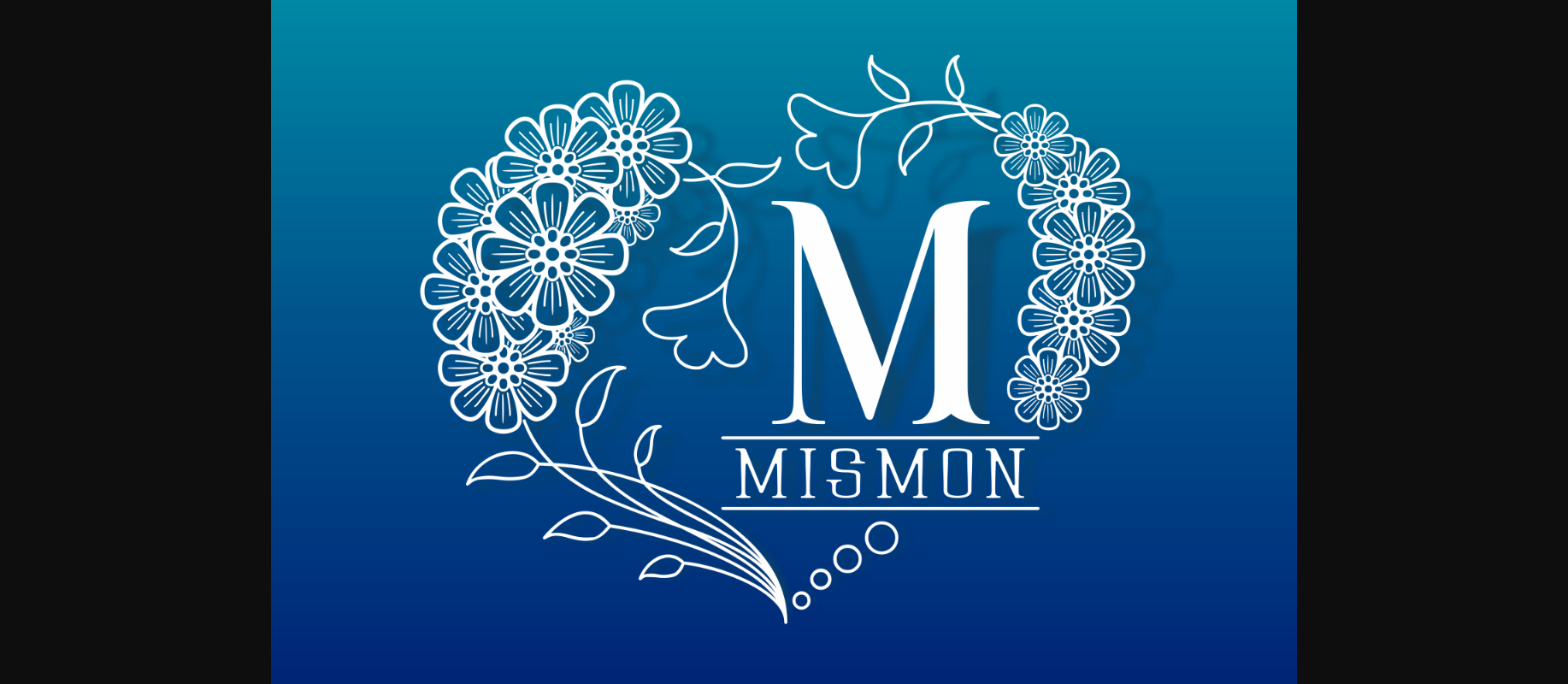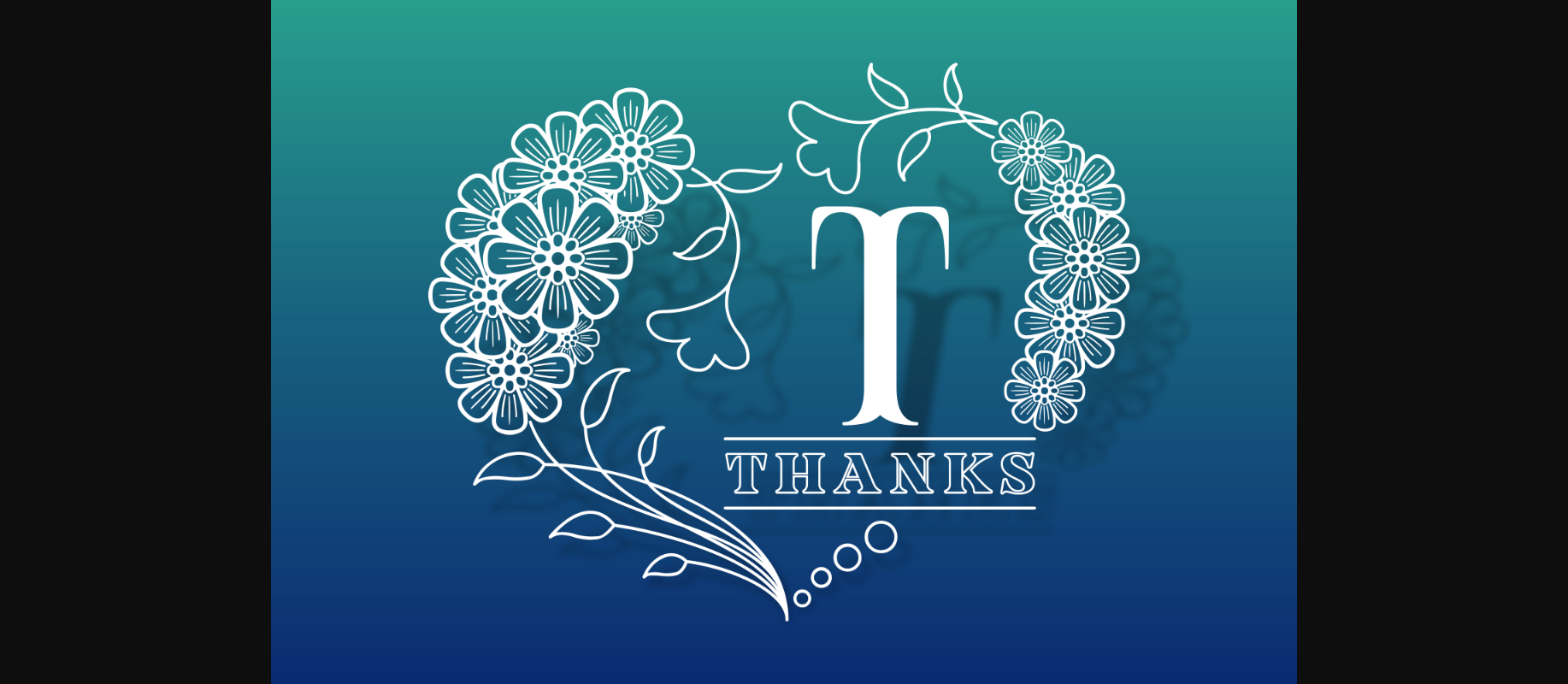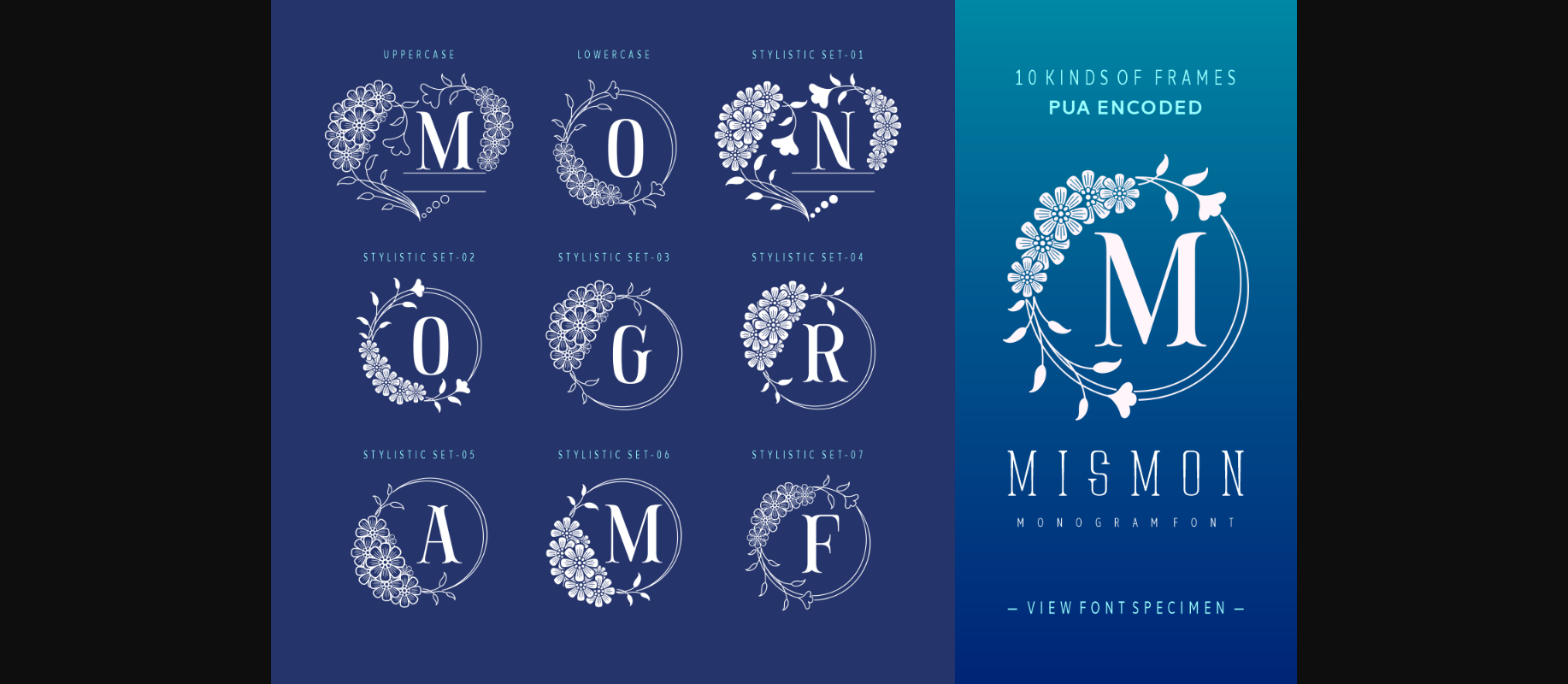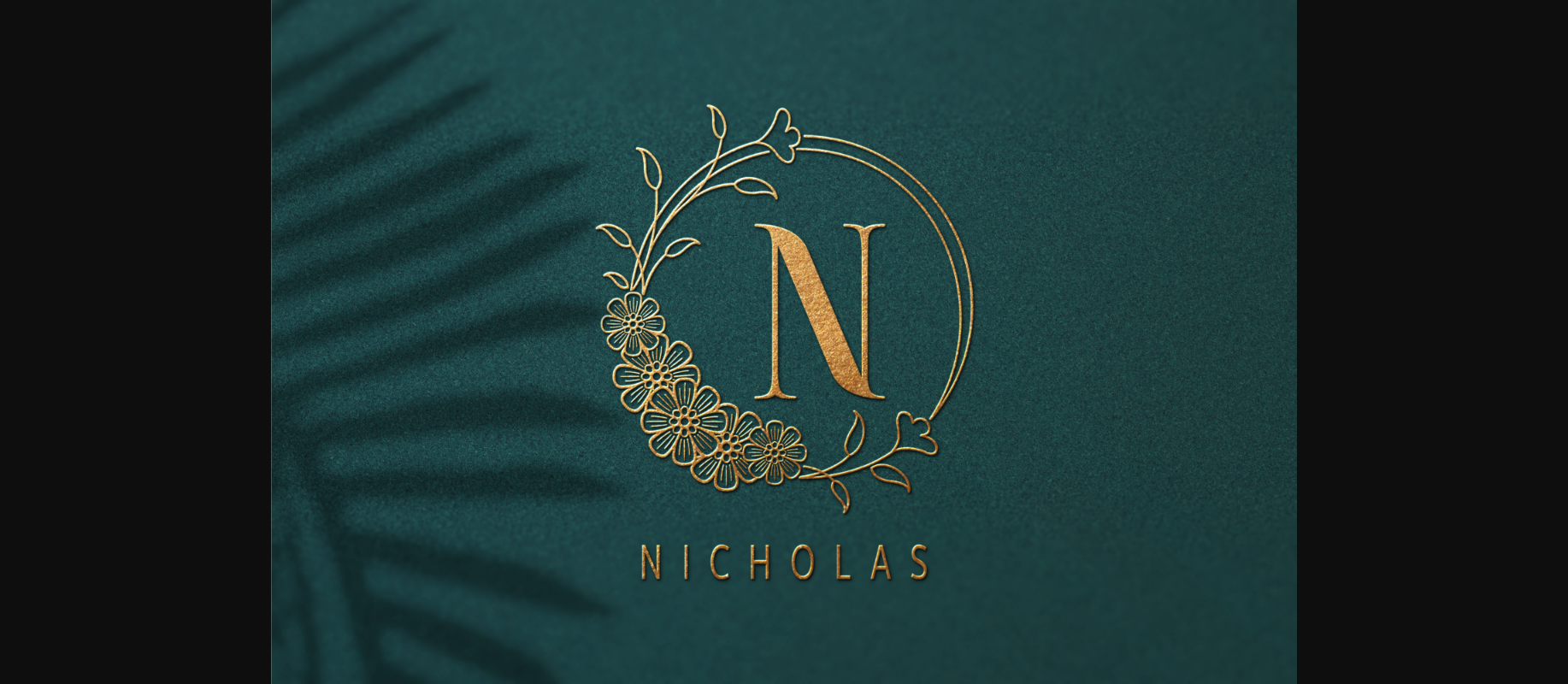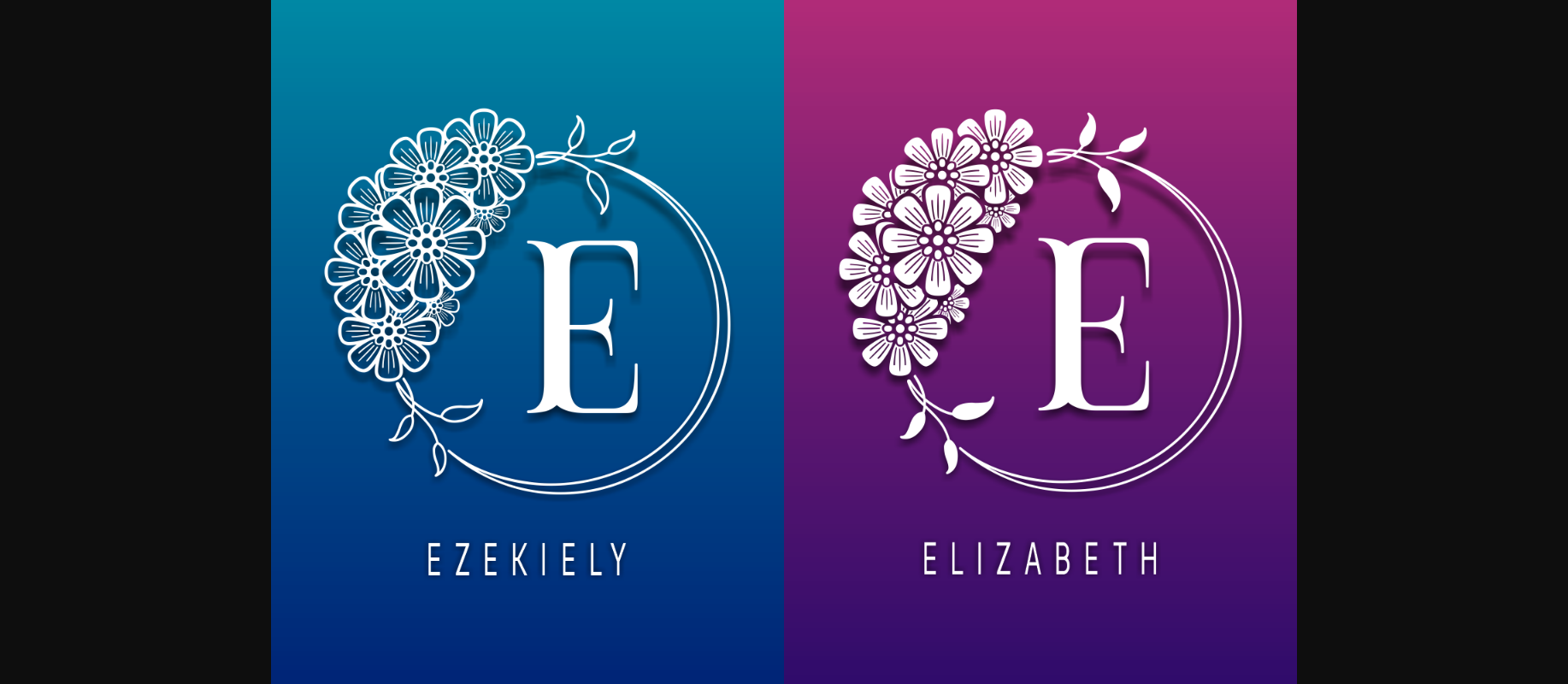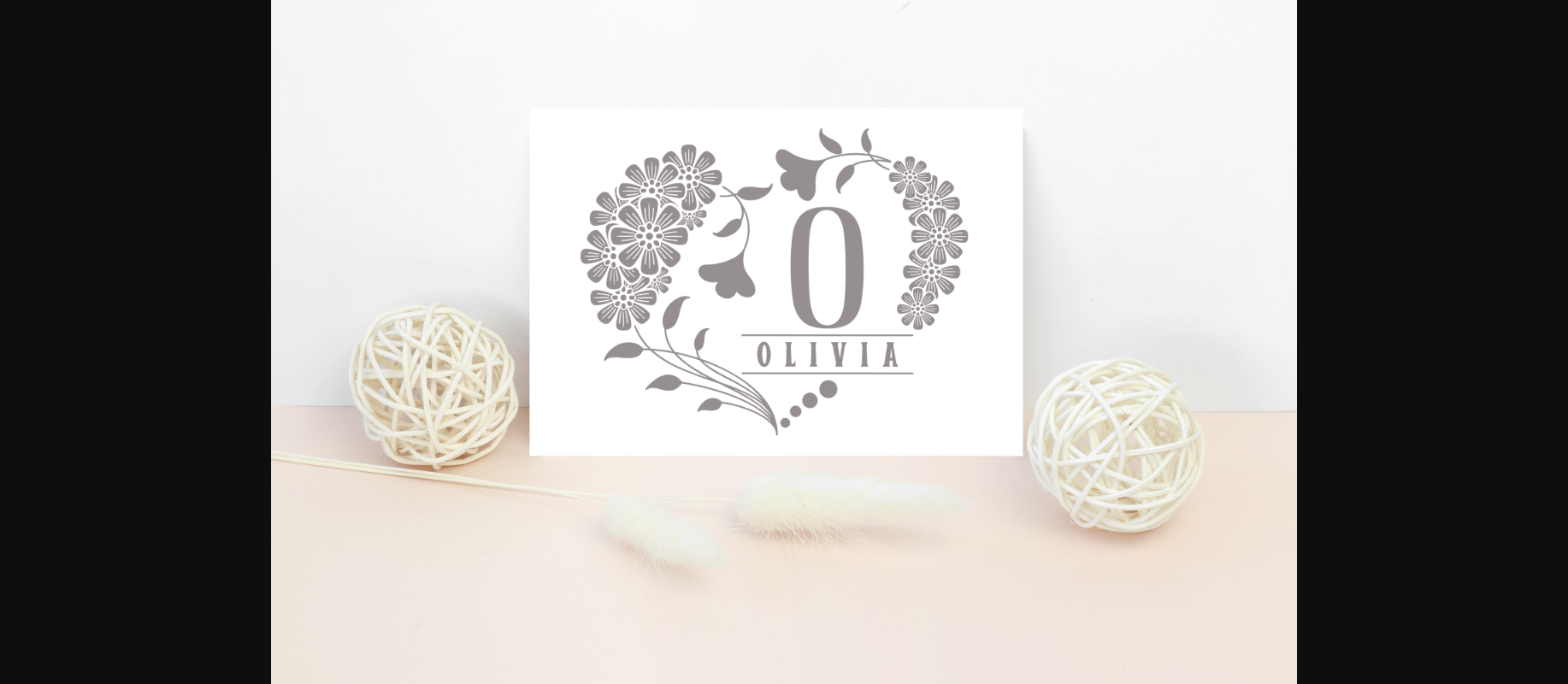
About Mismon Font
Mismon is a dainty and unique decorative font. Add this romantic and lovely looking font to each of your love letters, wedding invitations or favorite design ideas, and you will be astounded by the outcome.